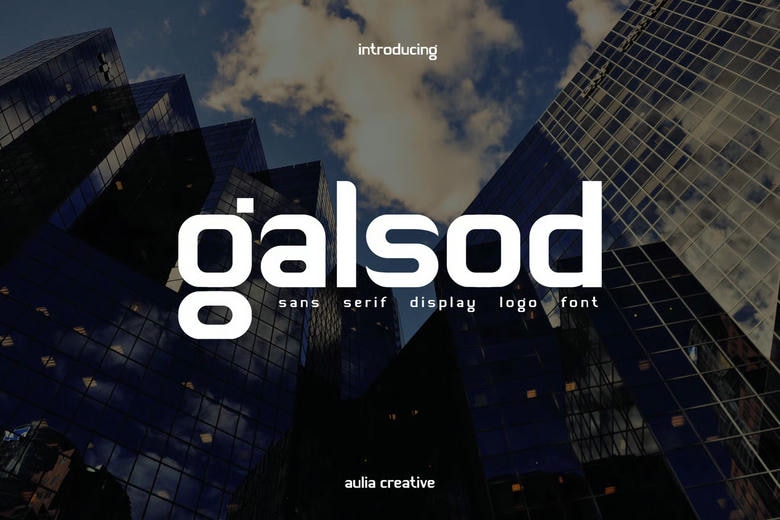
Galsod Font
Galsod is a wonderful and natural display font, which is used in branding and logos. Having a daring sans-style outlook, it brings a clean and contemporary look that is distinct in visual designs. This font can be used in logos, titles and other display purposes where a bold and professional impression is required.
Galsod Sans Serif Font